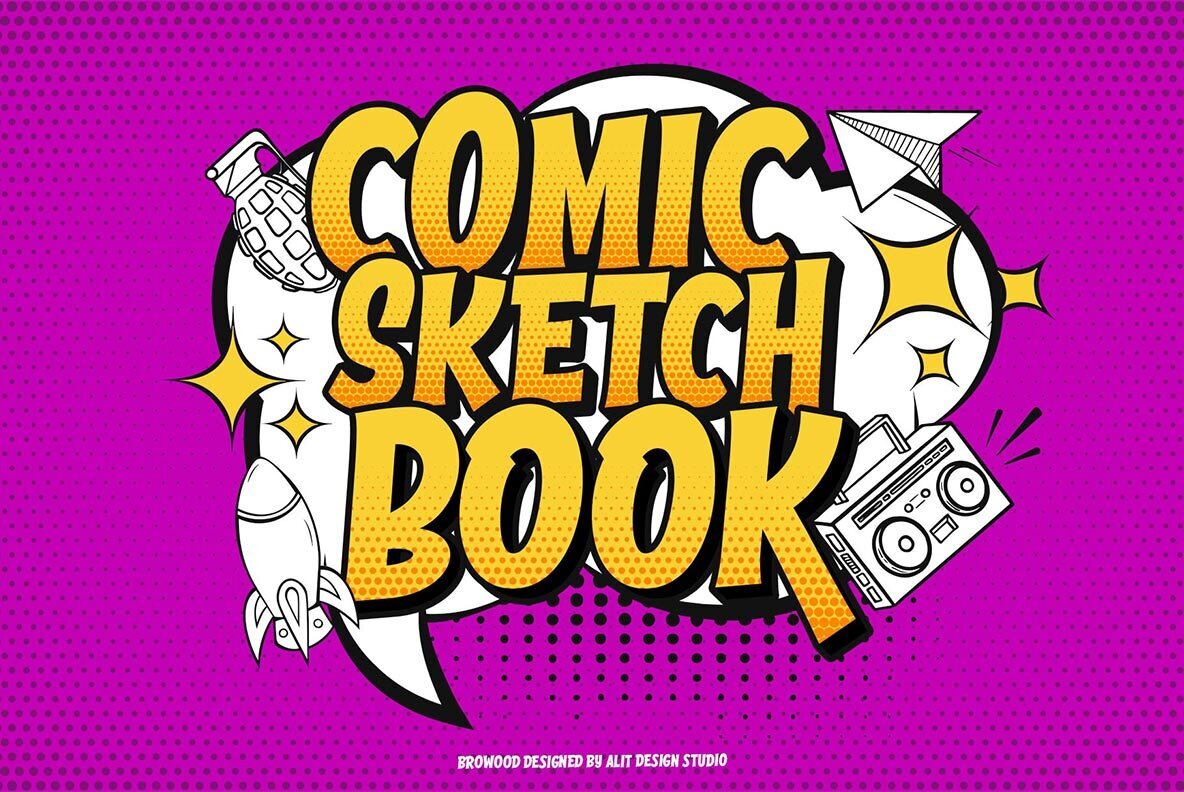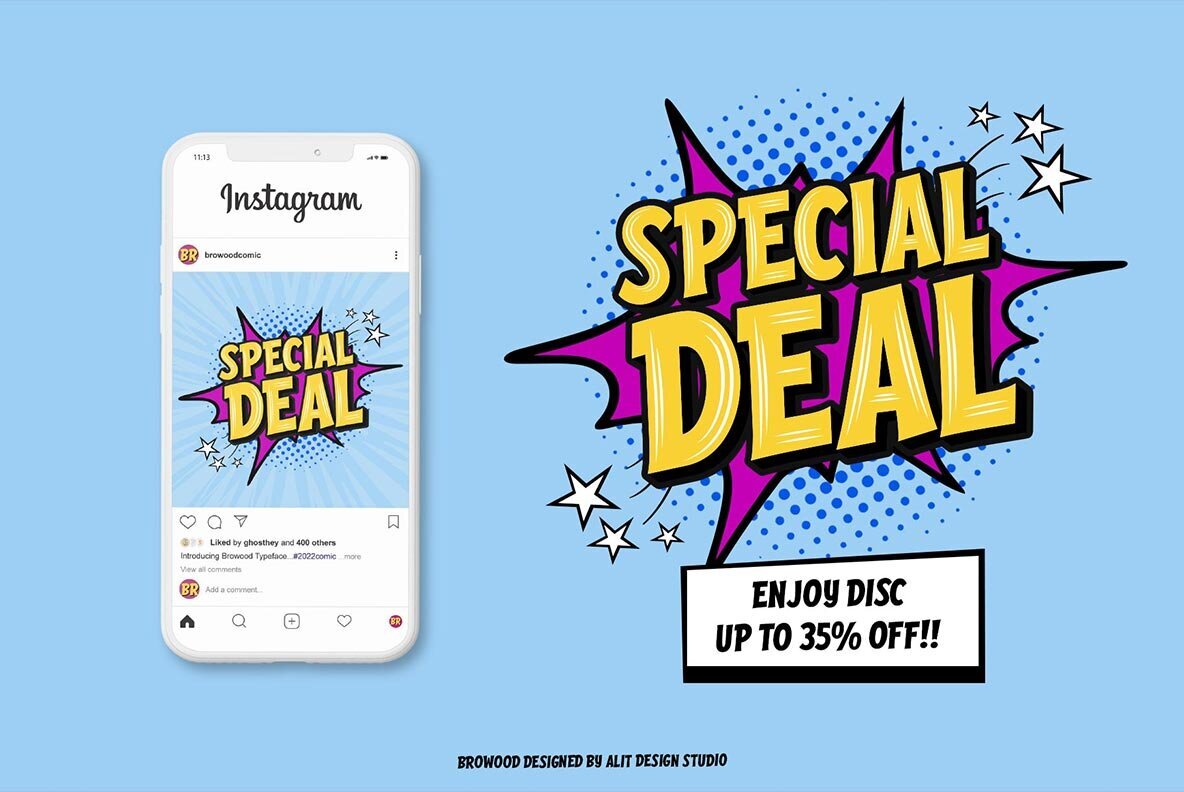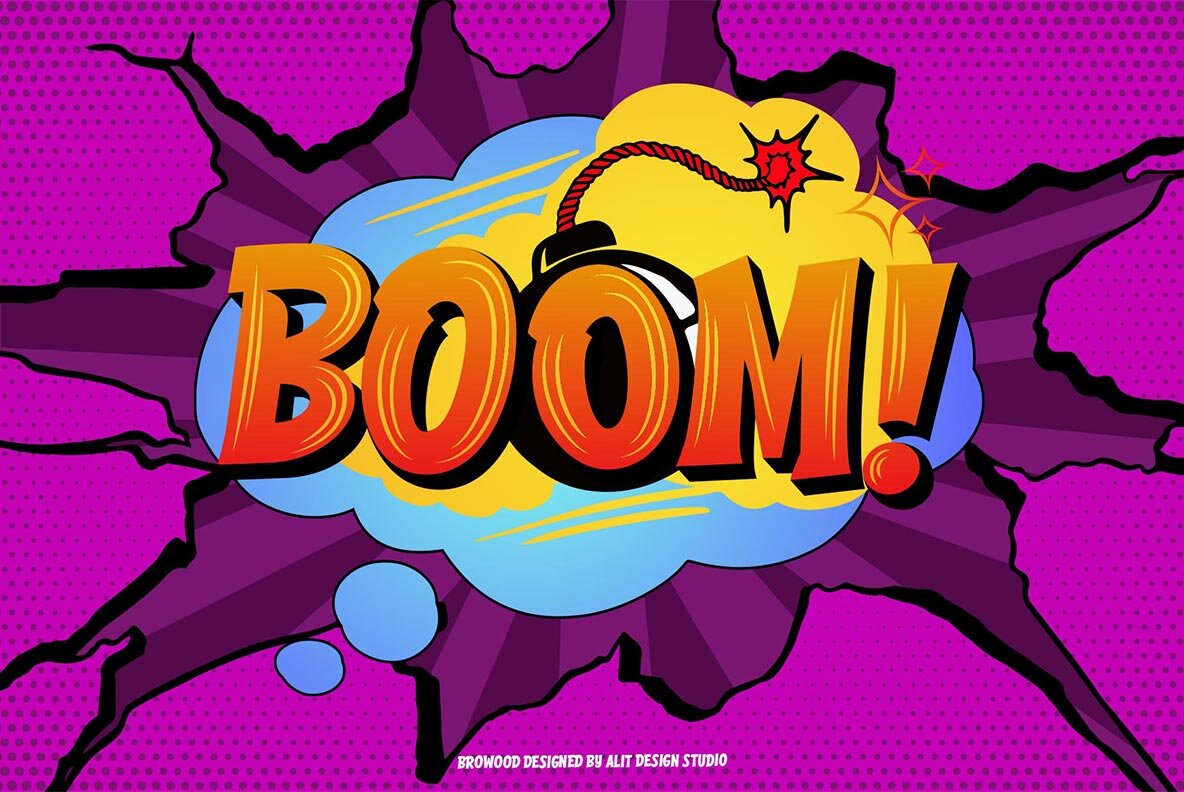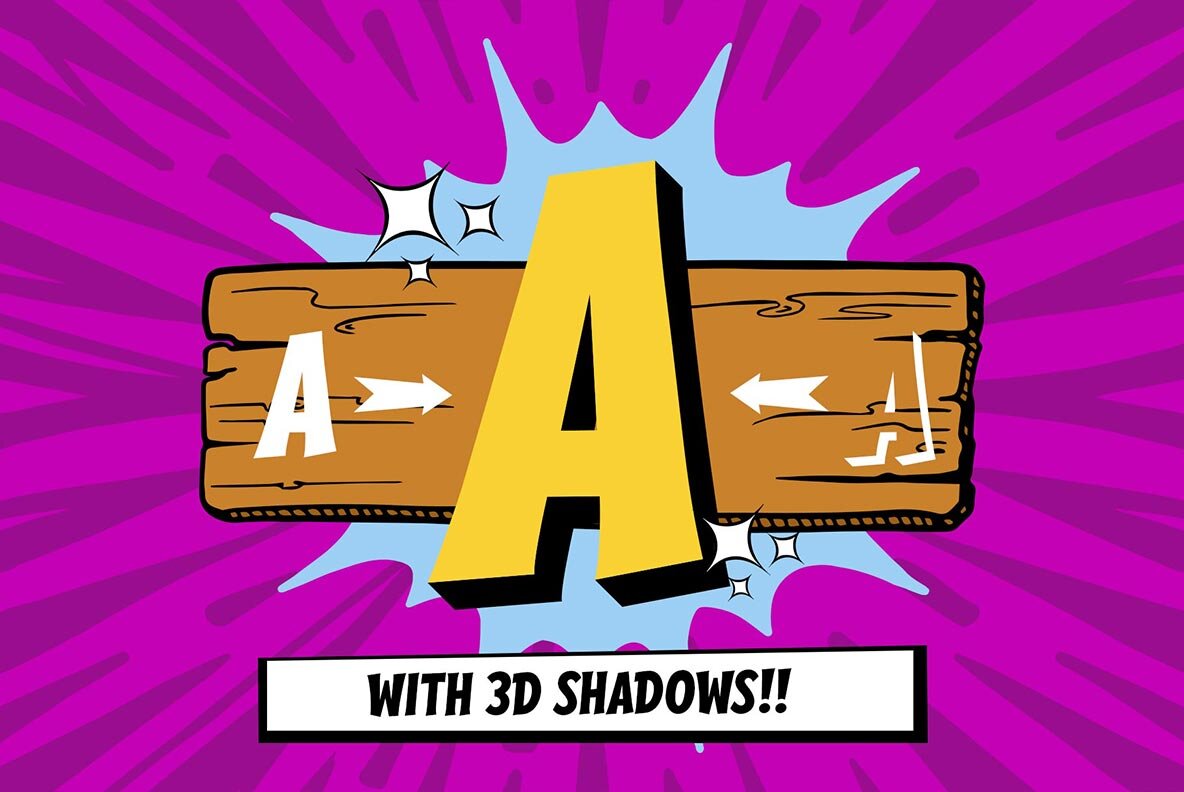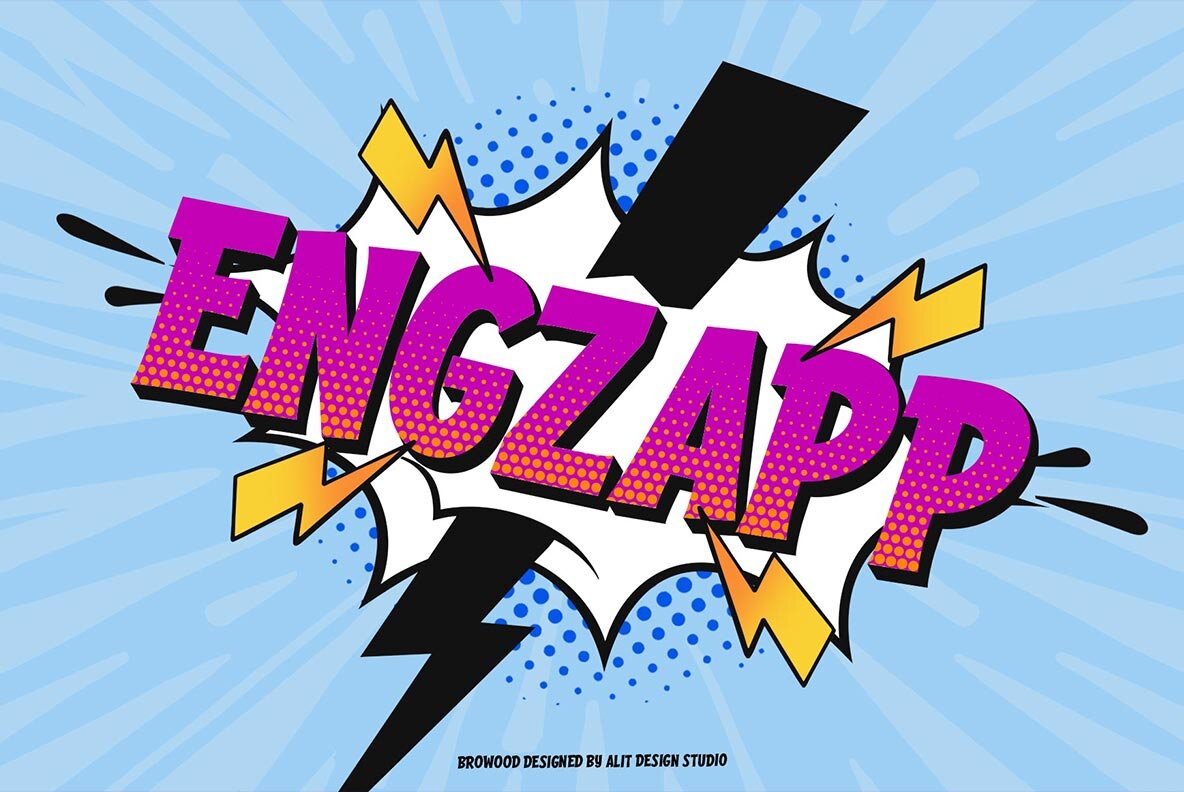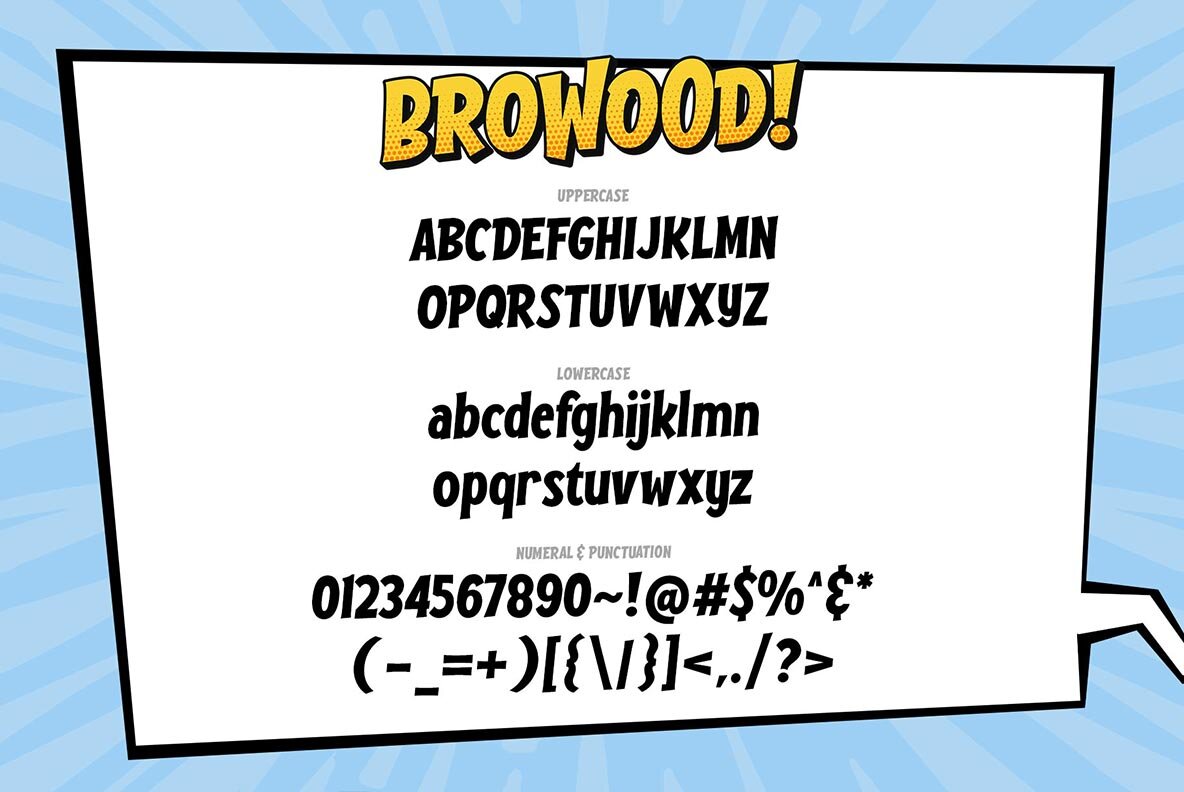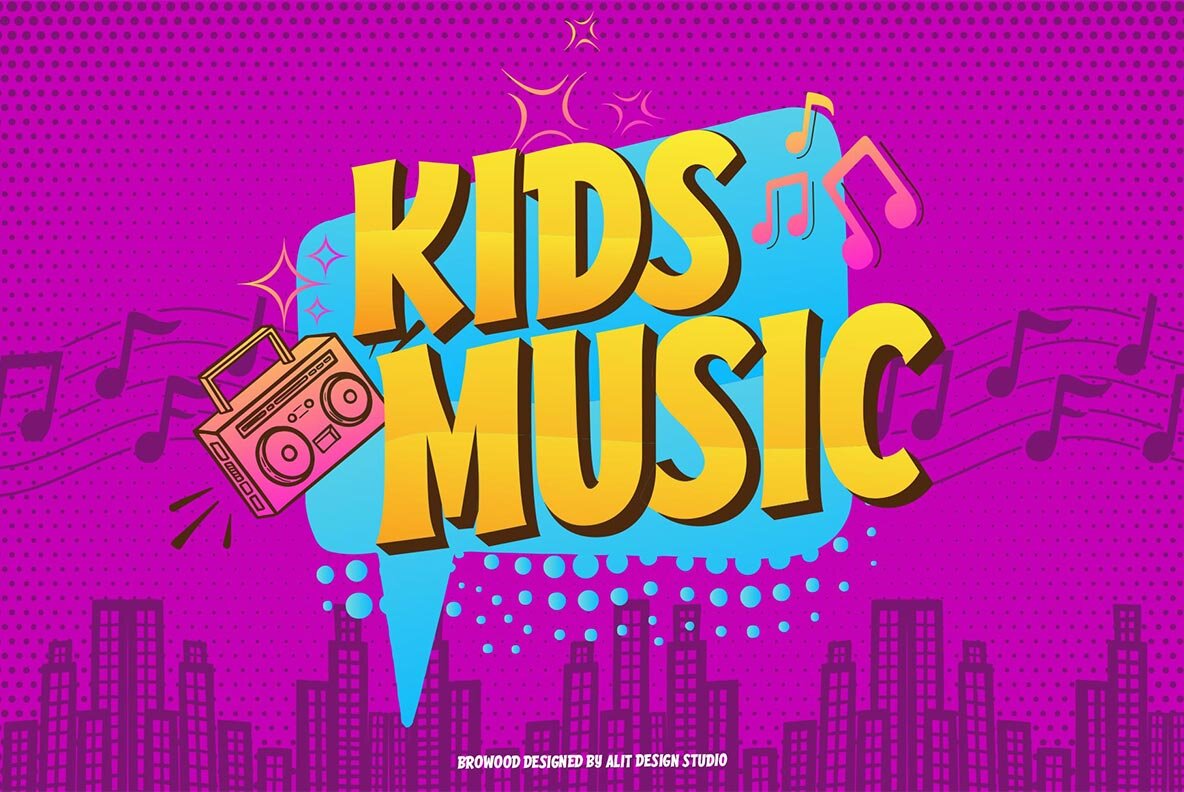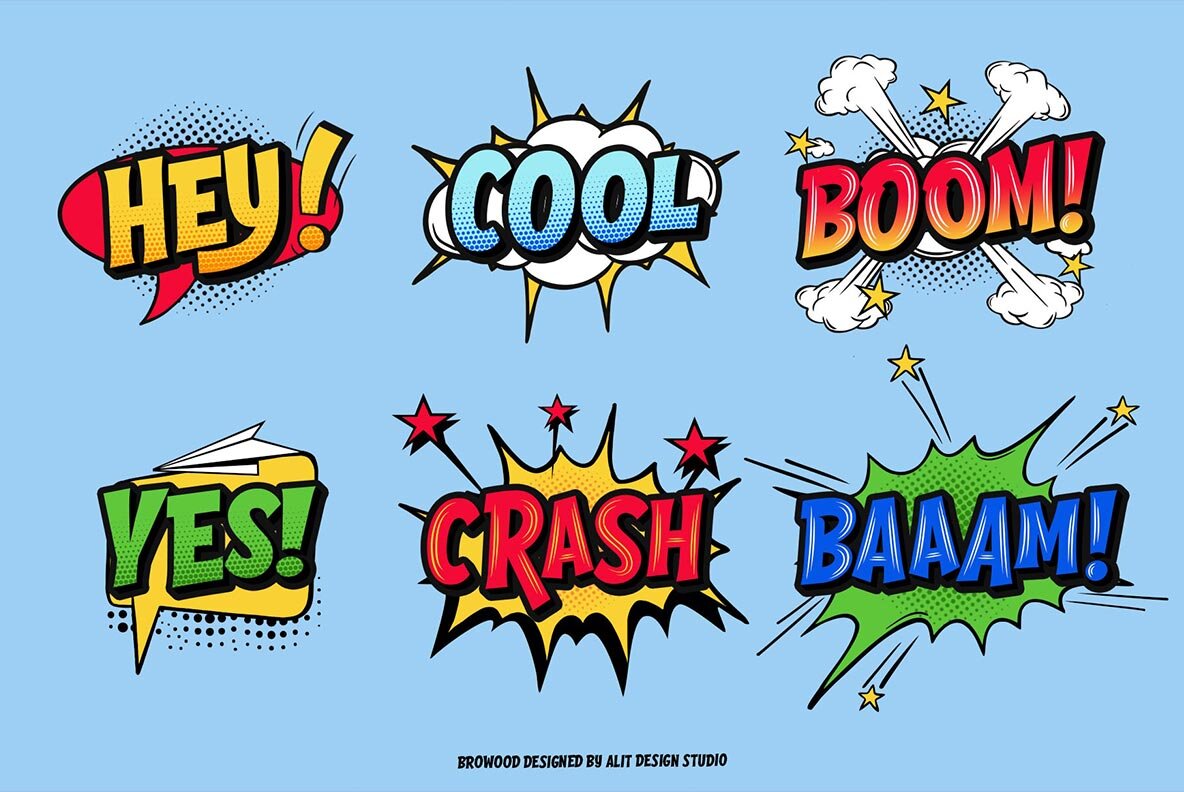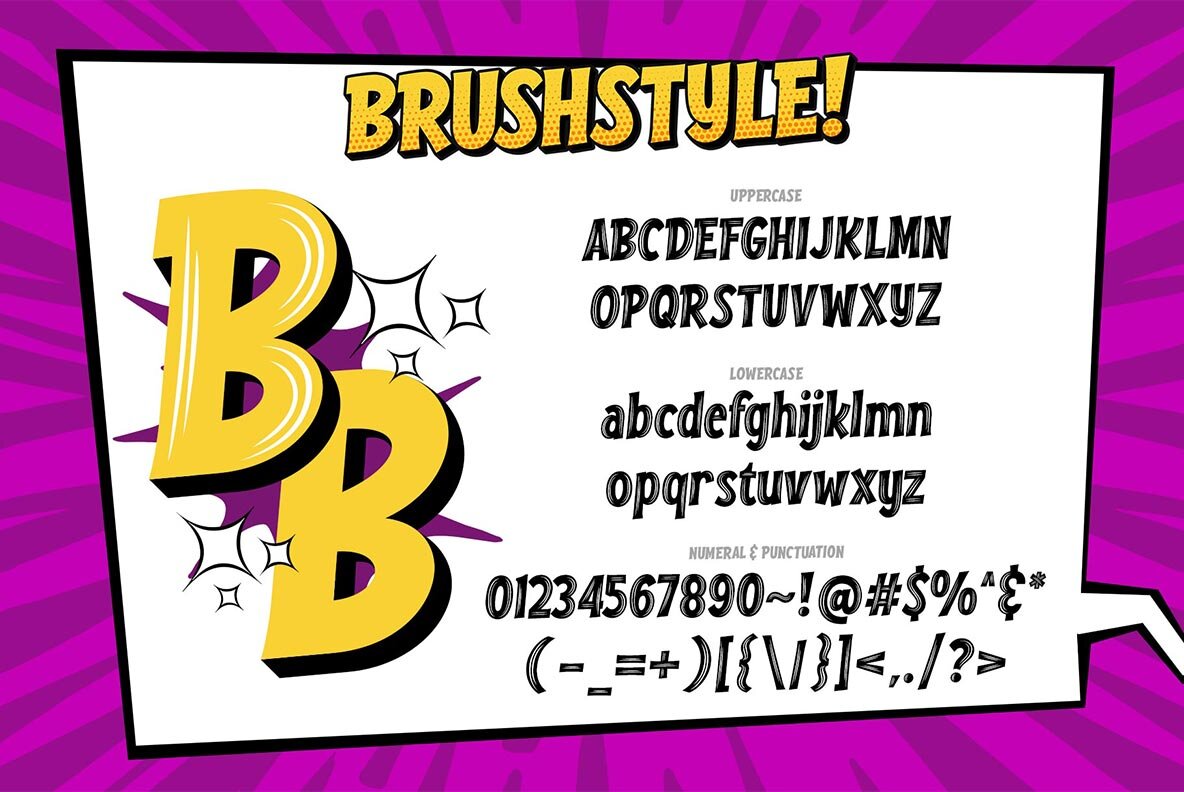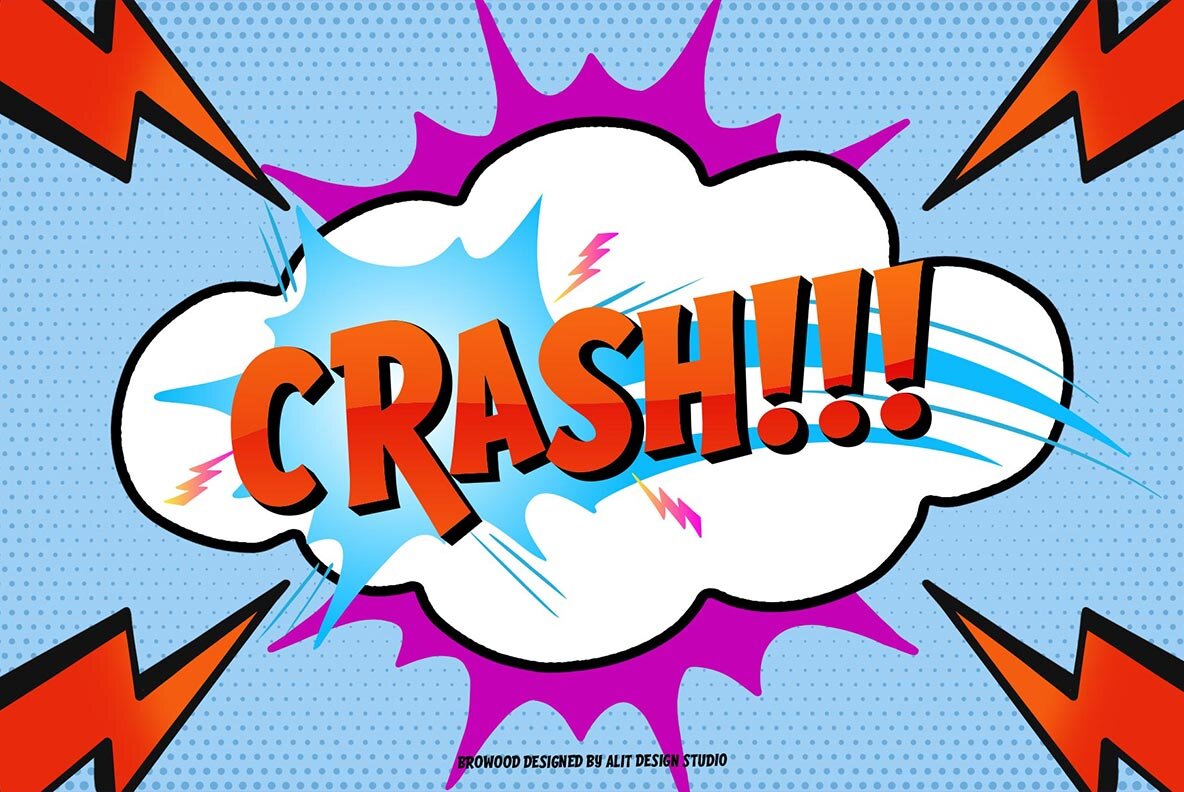
The Browood Font
Browood 3D Regular
Browood Brush Regular
Browood Regular
The Browood Layered Comic Font draws inspiration from the lighthearted lettering seen in comic strips, reflecting a fun and carefree spirit. Designed as a sans serif display font, it brings a playful vibe perfect for children's design projects. Featuring a three-layered design, The Browood is ideal for non-serious themes, children's book headers, and comic text applications. Boasting over 544 glyphs, The Browood font offers an array of alternative options and supports a wide range of languages including Latin, Western European, and Vietnamese. To utilize the beautiful swashes, access OpenType features in programs like Adobe Illustrator or Photoshop. If Glyphs panels are unavailable, additional swashes font files can be installed for full functionality.The Browood: Playful Layered Comic Font